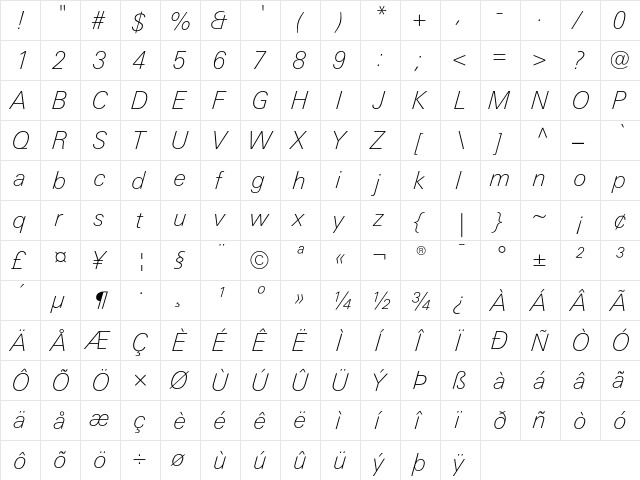
LinotypeUnivers BasicThinItalic Font Preview
Design Context for LinotypeUnivers Typeface
LinotypeUnivers offers clean, dependable letterforms without strong stylistic allegiance, making it a practical choice for designers who need flexibility. The dynamic lean of this cut emphasises speed and emphasis in any layout. The delicate stroke weight brings airiness and refinement to layouts.
Pro Tip: Try LinotypeUnivers for annotation and caption copy alongside an upright companion — the contrast in angle creates a dynamic but ordered typographic system.